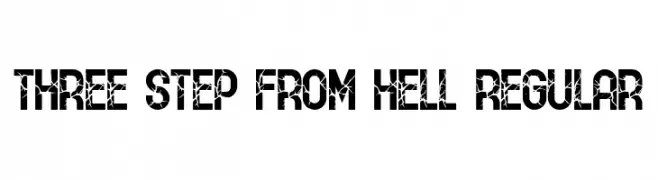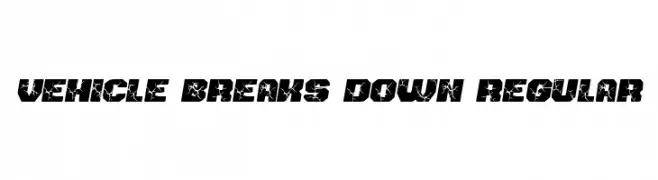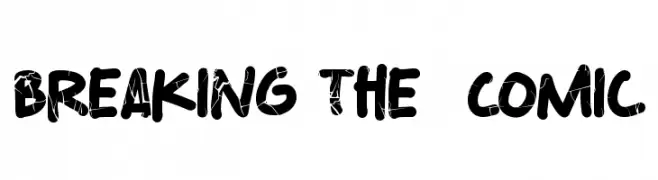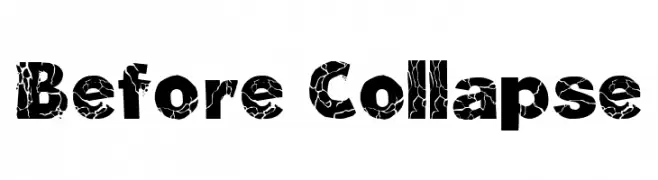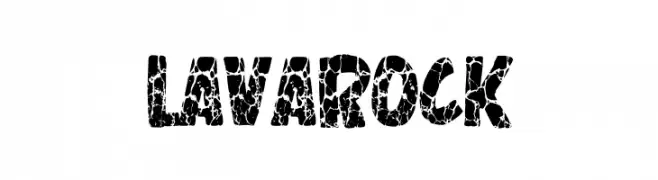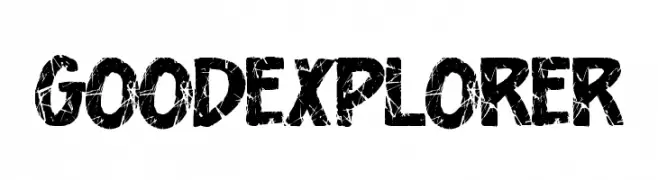
A bold, grunge-style font with a distressed, cracked texture.
A bold, cracked font with a distressed, edgy appearance.
A bold, cracked font with a rugged, distressed look.
A bold, decorative font with a cracked glass texture, perfect for impactful designs.
A bold, distressed font with a cracked texture for an edgy look.
A bold, distressed font with a cracked effect, perfect for impactful designs.
A bold, distressed font with a cracked texture for an edgy look.
A bold, textured font with a cracked, stone-like appearance.
A bold, distressed font with a cracked texture for impactful designs.